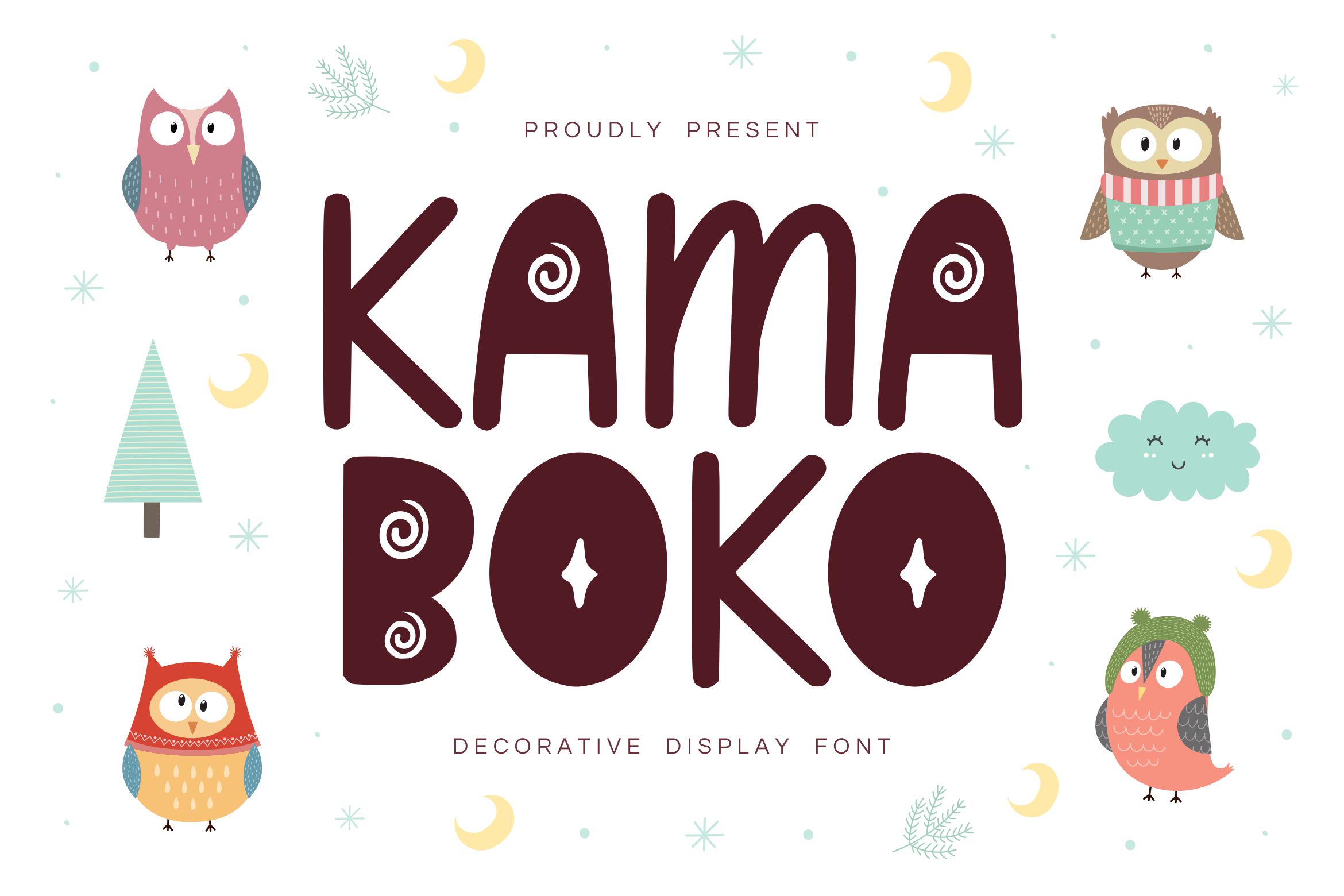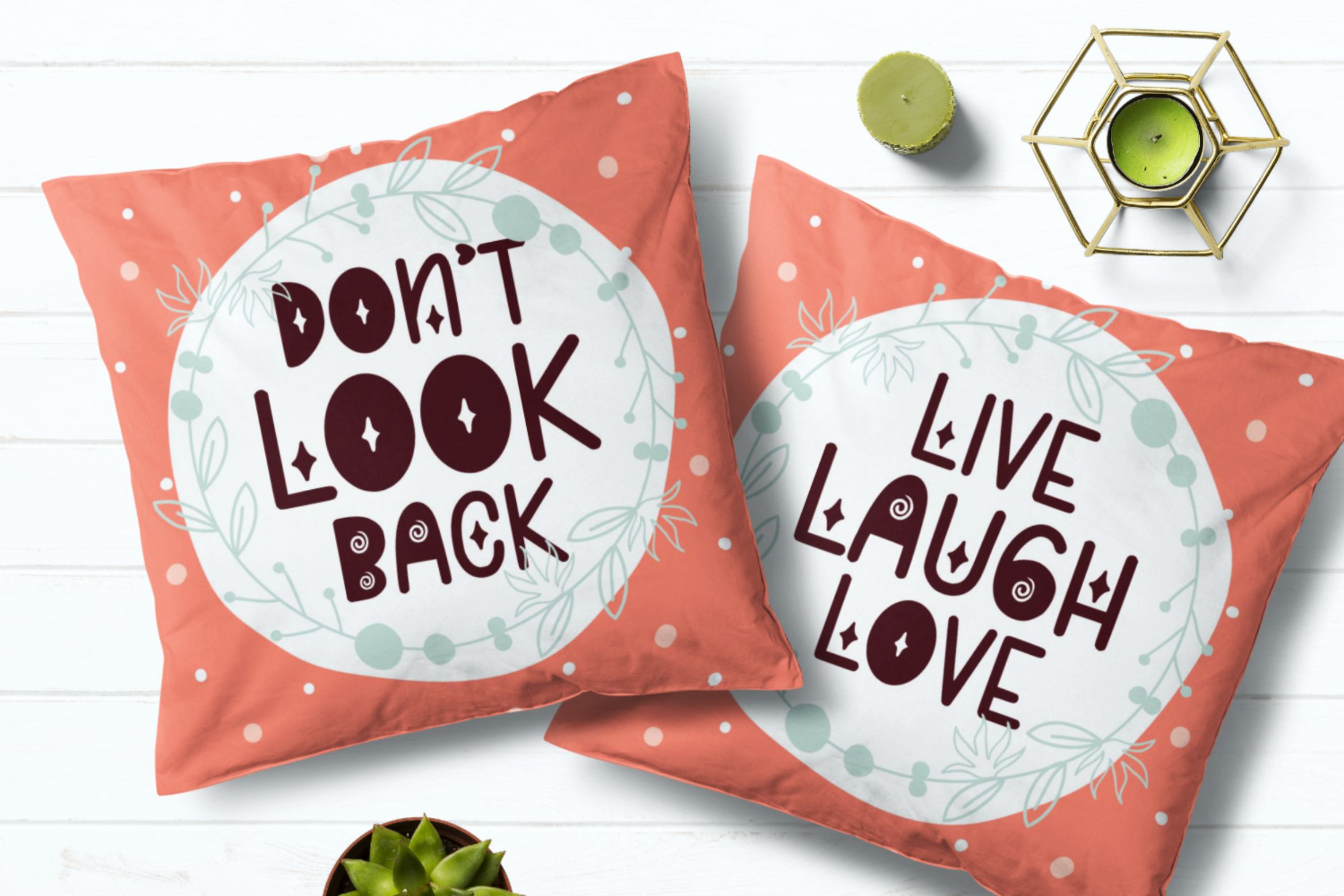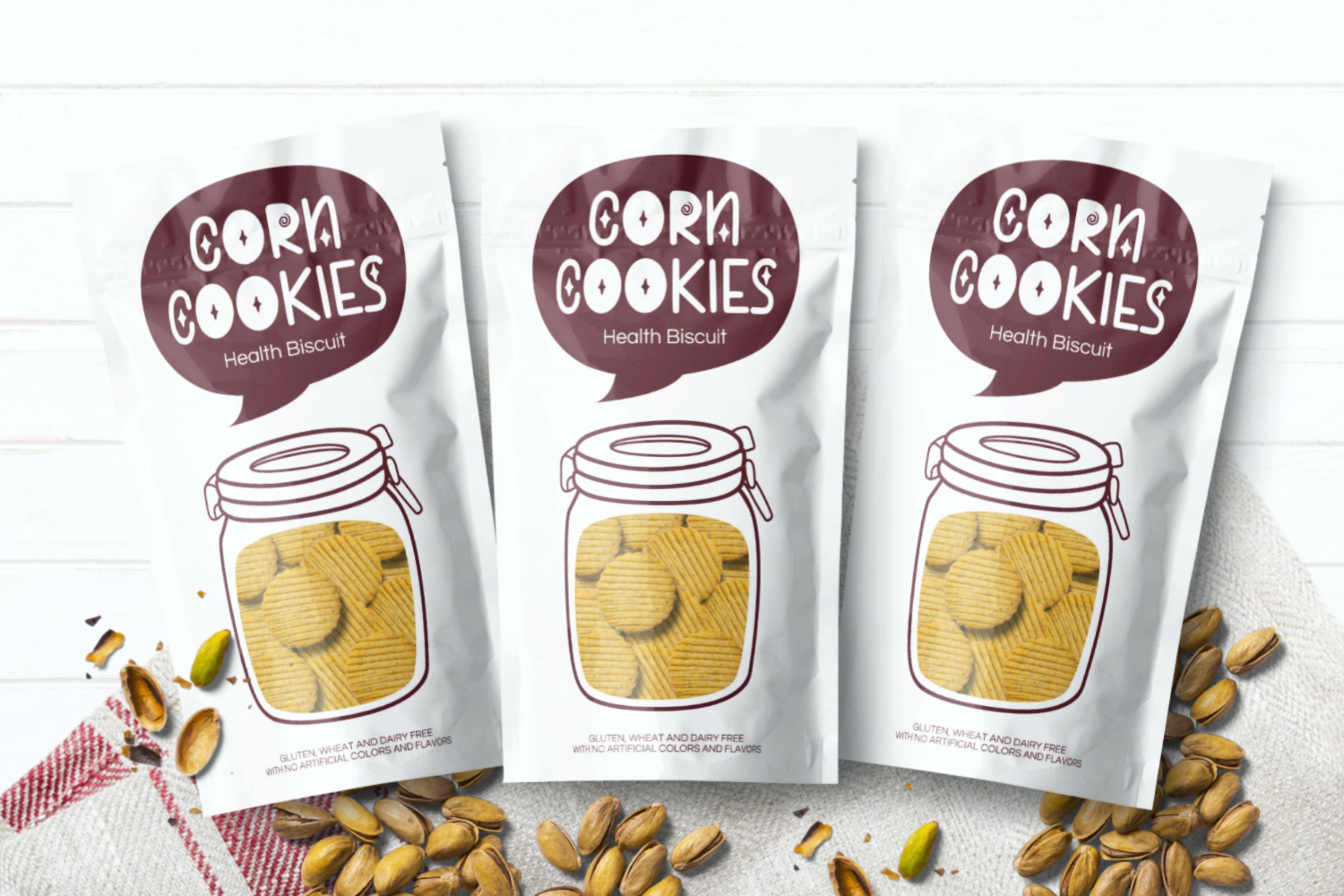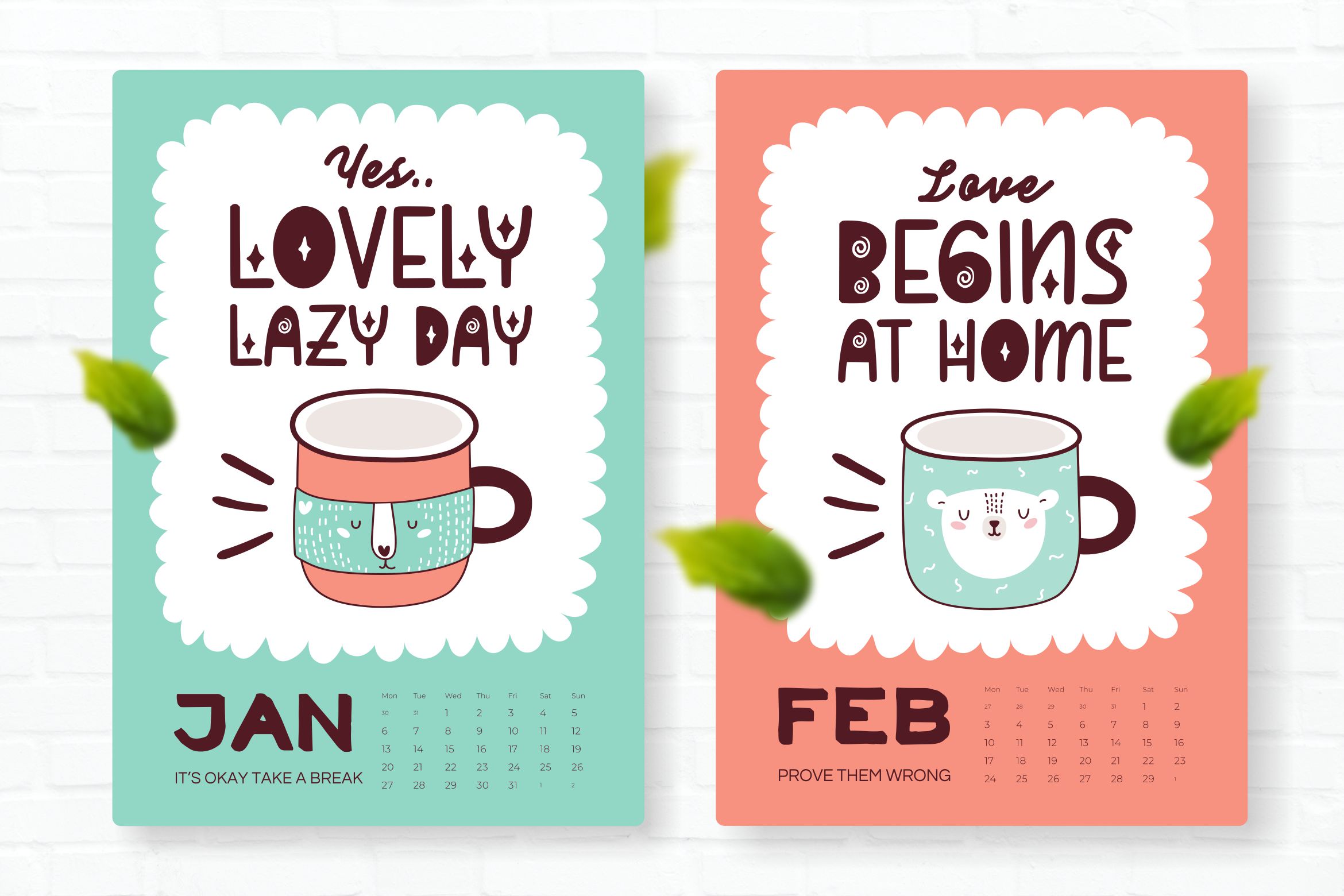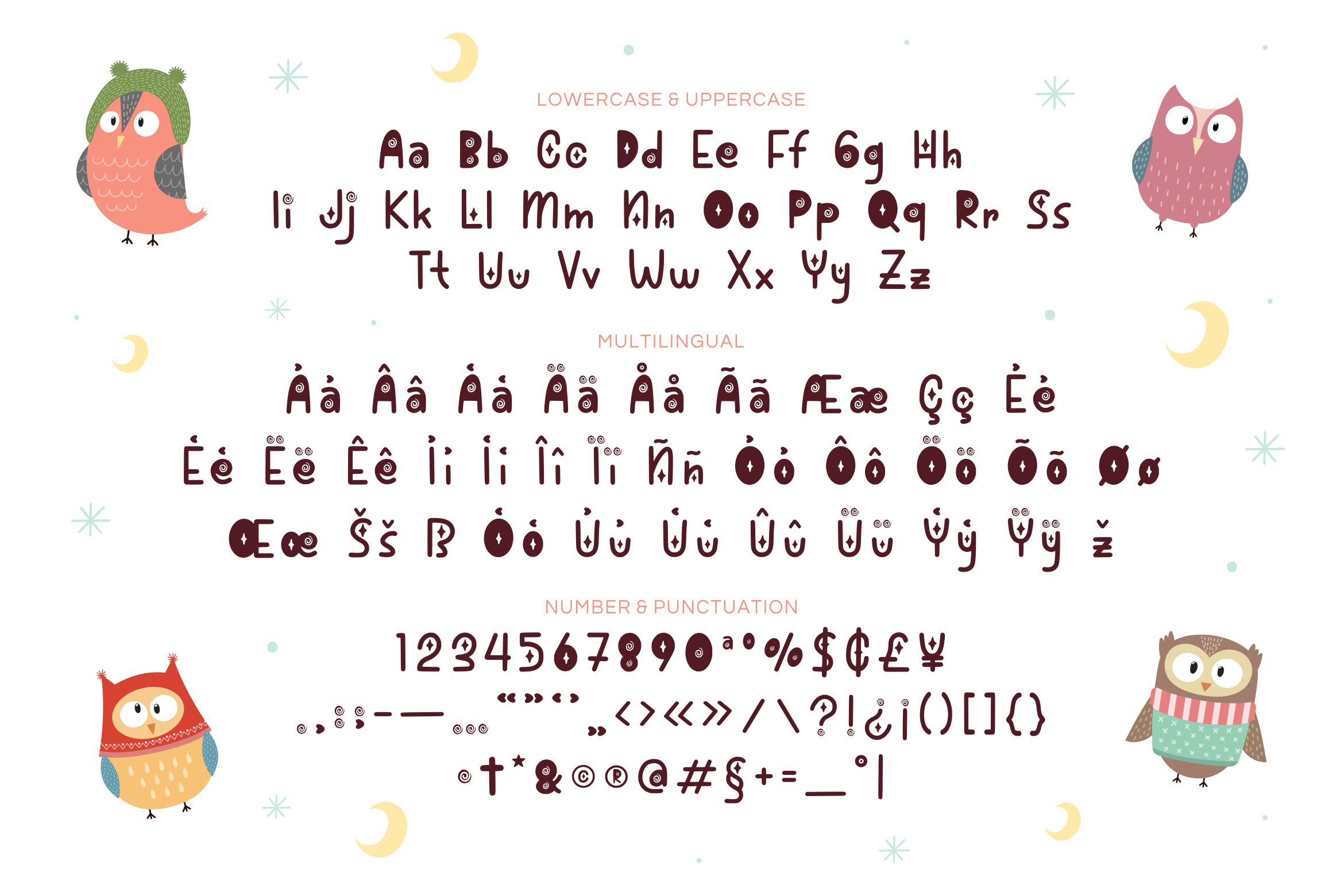
Kamaboko is a whimsical decorative display font that radiates playfulness and charm. With its soft curves, quirky shapes, and fun embellishments like spirals and stars, this typeface brings a joyful, childlike energy to your designs. Whether you’re working on kids’ products, seasonal greeting cards, or fun branding projects, Kamaboko adds a unique, eye-catching character to your text.
Perfectly suited for packaging, posters, calendars, and quotes, Kamaboko is a versatile font that supports multilingual characters, numbers, and symbols. The handmade look and cheerful style make it an excellent choice for creative projects looking to capture warmth and personality.